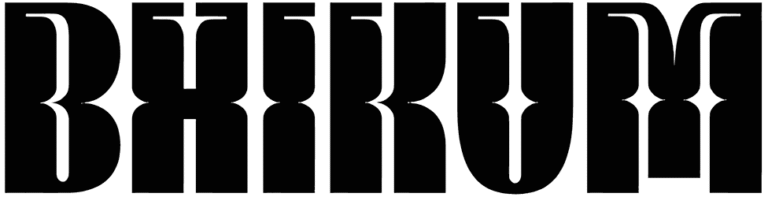
Polesitter Font
Just wow! It’s like the letters of Polesitter could not get any bolder. Still, it’s interesting how it keeps the text both strong and tasteful. Yes, we’re talking about those ligatures. No one could see them coming into the gym font, not even us.
So what do you say we give this groovy font a shot and throw it on phone shop logos, car games, sports YouTube channel banners, and lots of other projects, as long as you see fit.